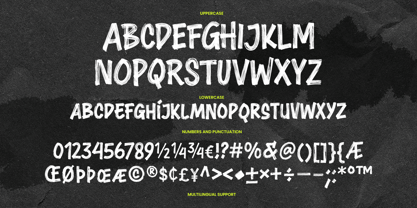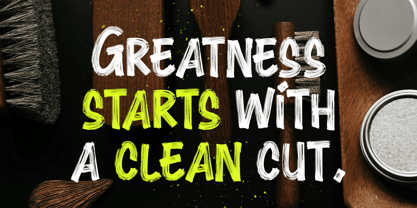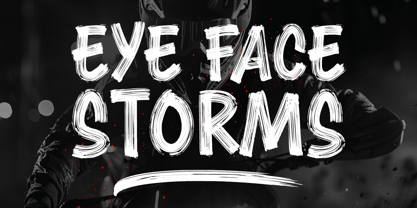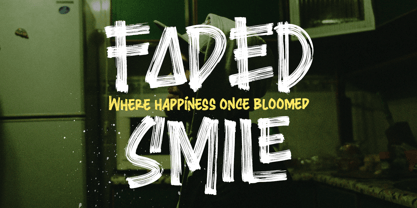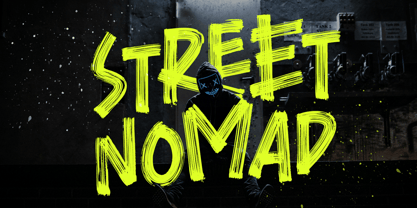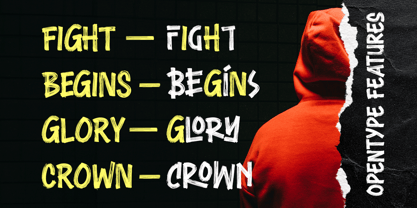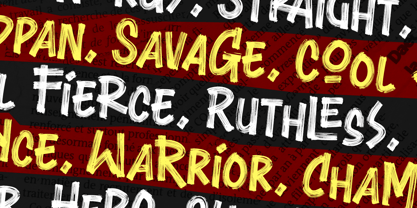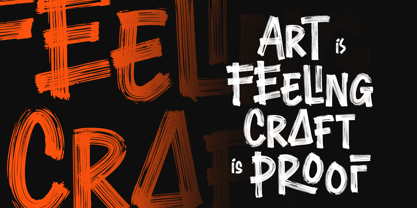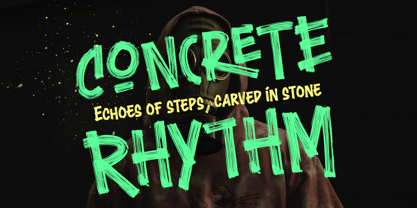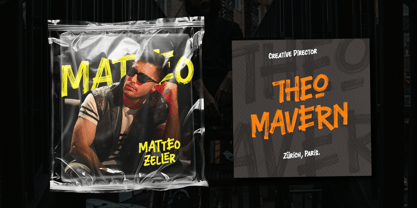
Throwback Glorious
by Arterfak Project
The Throwback Glorious Font Family was designed by Ahmad Ramzi Fahruddin and published by Arterfak Project. Throwback Glorious contains 1 styles. More about this family
Unleash your bold side with Throwback Glorious!
A raw and expressive handwritten font crafted with dry brush strokes and rich textures. Let your emotions flow with this freestyle brush typeface, inspired by the spirit of street art and freestyle calligraphy. Bold and unapologetic, Throwback Glorious speaks louder than words—capturing personality, energy, and strength in every stroke.
Perfect for posters, branding, logos, headlines, and labels, this font fits seamlessly into various themes such as sports, streetwear, urban culture, cyberpunk, fashion, and packaging design.
Features:
• All-uppercase character set
• Numbers and symbols
• Punctuation marks
• Stylistic alternates
• Ligatures
• Multilingual support